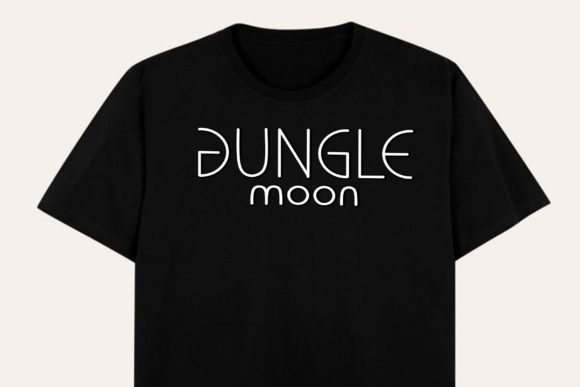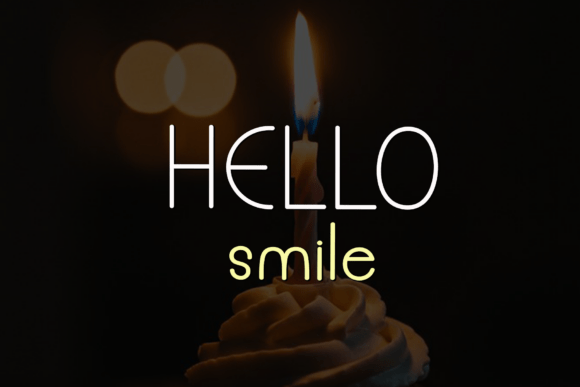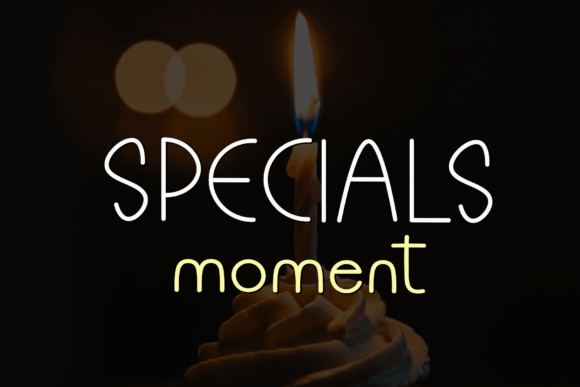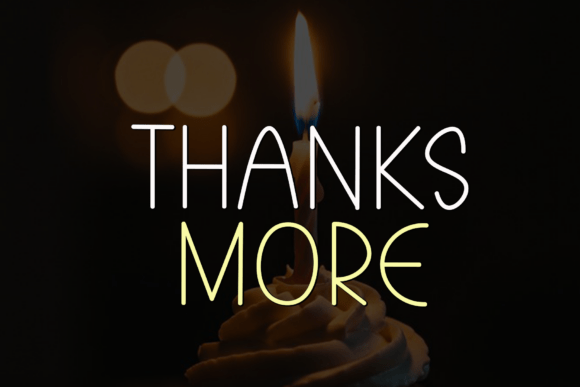
Dreaming Birthdays Font: Adding a Personal Touch to Your Designs
Are you tired of using the same old fonts for your designs? Do you want to add a personal and friendly touch to your quotes, invitations, branding, and social media posts? Look no further than the Dreaming Birthdays font, a casual handwritten font that radiates warmth and personality.
What is Dreaming Birthdays Font?
Dreaming Birthdays is a beautifully crafted font that captures the charm of authentic handwriting with a modern, approachable feel. Featuring smooth strokes, natural curves, and easy-flowing letterforms, this font is perfect for designers and crafters who want to add a touch of personality to their work.
Key Features of Dreaming Birthdays Font
- Smooth Strokes: The font features smooth strokes that give it a natural and effortless look.
- Natural Curves: The curves in the font are carefully crafted to create a sense of fluidity and movement.
- Easy-Flowing Letterforms: The letterforms are designed to flow easily into each other, creating a sense of continuity and harmony.
- Modern and Approachable: The font has a modern feel that’s approachable and friendly, making it perfect for a wide range of design applications.
Uses for Dreaming Birthdays Font
Dreaming Birthdays font is incredibly versatile and can be used for a variety of design projects, including:
- Quotes: Add a personal touch to your inspirational quotes and sayings.
- Invitations: Create beautiful and unique invitations for parties, weddings, and other special events.
- Branding: Use the font to create a distinctive brand identity that’s friendly and approachable.
- Social Media Posts: Add a touch of personality to your social media posts and make them stand out.
Benefits of Using Dreaming Birthdays Font
So why should you choose Dreaming Birthdays font for your designs? Here are just a few benefits:
- Readability: The font is highly readable, even at small sizes, making it perfect for a wide range of design applications.
- Charm: The font has a charming and personality-filled feel that’s sure to capture the attention of your audience.
- Versatility: The font is incredibly versatile and can be used for a wide range of design projects.
Tips for Using Dreaming Birthdays Font
Here are a few tips for getting the most out of Dreaming Birthdays font:
- Use it with Images: The font looks great when paired with images, especially those with a natural or vintage feel.
- Experiment with Colors: The font works well with a wide range of colors, so don’t be afraid to experiment and find the perfect combination for your design.
- Mix and Match: Try mixing and matching the font with other fonts to create a unique and eye-catching design.